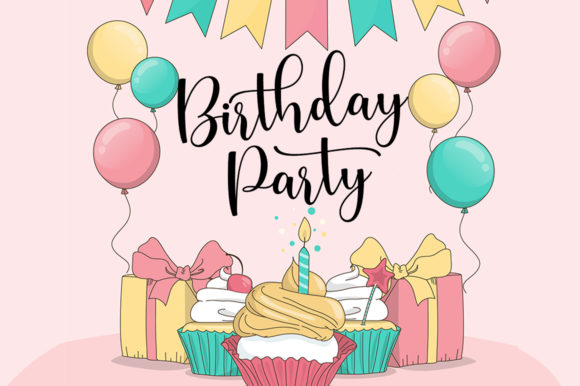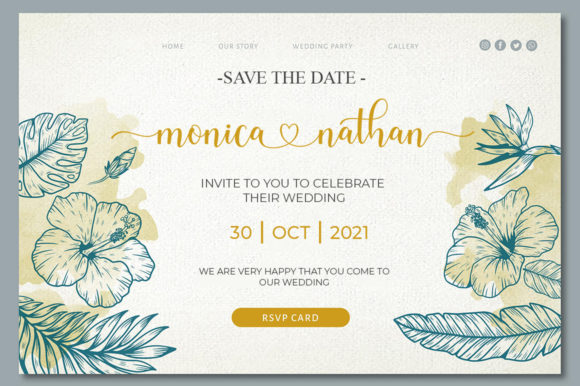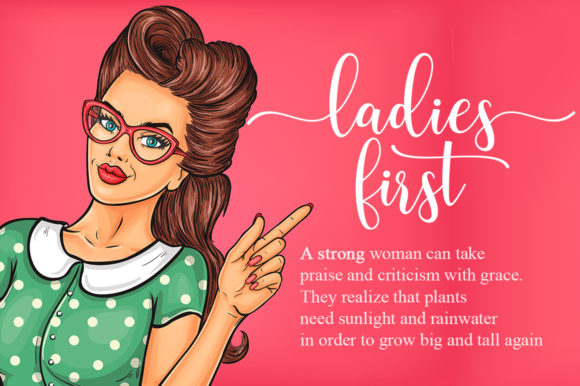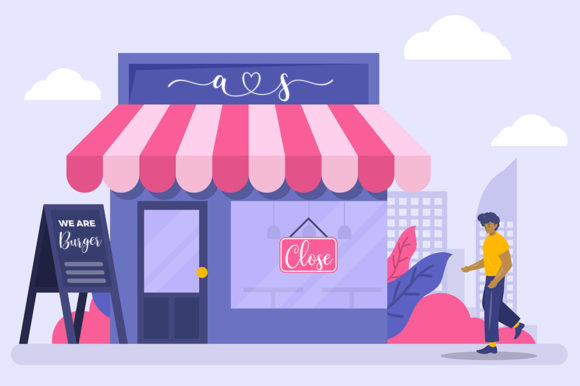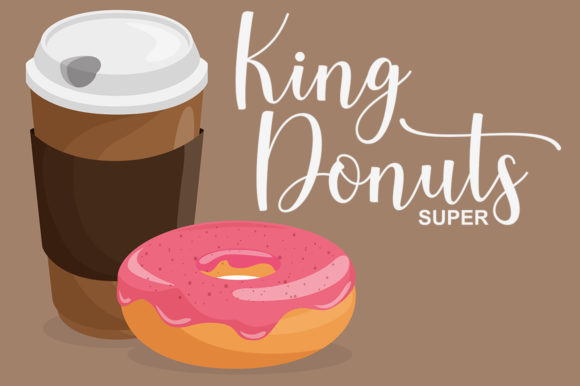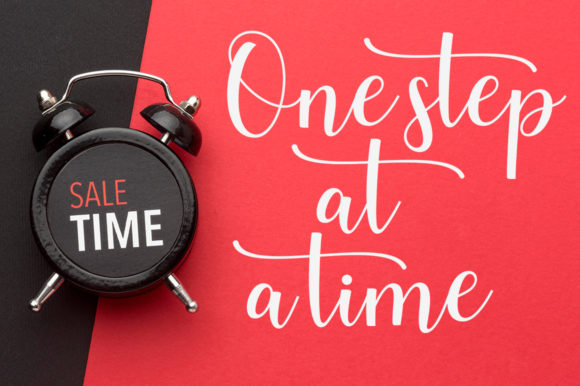
Introduction to Smith Catrine Font
Smith Catrine is a delicate, elegant and flowing handwritten font.
It has beautiful and well balanced characters and as a result, it matches a wide pool of designs Smith Catrine features a varying baseline, smooth lines, gorgeous glyphs and stunning alternates.
Key Features of Smith Catrine Font